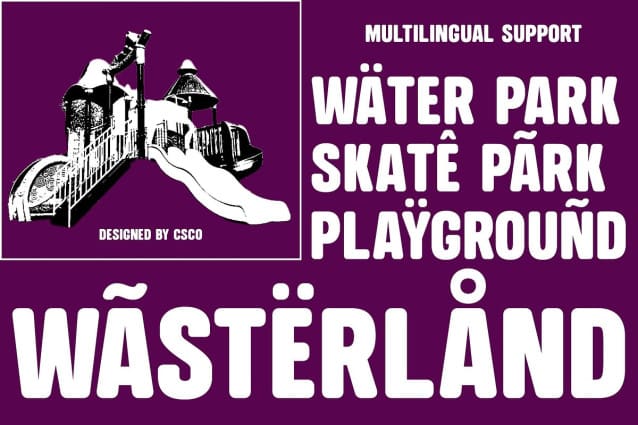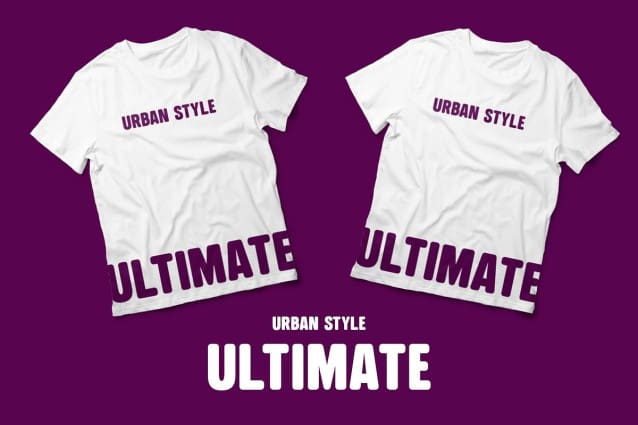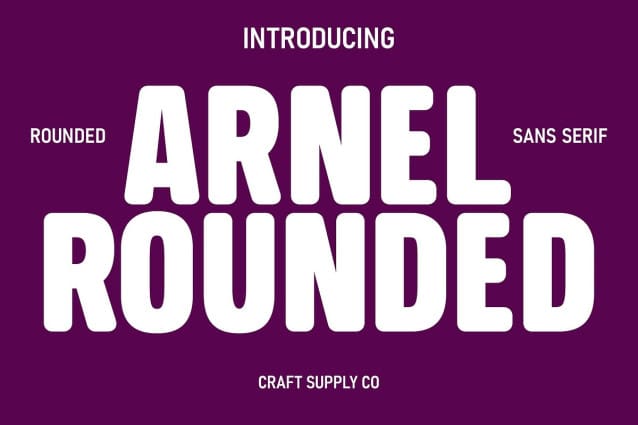
Arnel Rounded Font
Arnel Rounded Font: The Bold and Rounded Sans Serif. Bold and Dynamic Arnel Rounded is a bold sans serif font that commands attention with its rounded edges and strong presence. Its robust design ensures clarity and legibility in any context.
Smooth and Rounded With its rounded corners and smooth curves, This font exudes a sense of friendliness and approachability. The rounded details add a touch of warmth to the overall appearance.
Versatile Application Ideal for a wide range of design projects, This font adapts seamlessly to various mediums, from digital screens to print materials. Its bold and rounded features make it suitable for headlines, logos, and branding.
Contemporary and Trendy This font embodies a contemporary aesthetic with its rounded design, making it a trendy choice for modern design projects. Whether used in web design or advertising, it adds a touch of style and sophistication.
Bold, Rounded, and Versatile This font combines boldness with rounded edges to create a versatile sans serif font suitable for a myriad of design applications. Its contemporary appeal and rounded features make it a trendy choice for designers seeking a modern and approachable typeface.